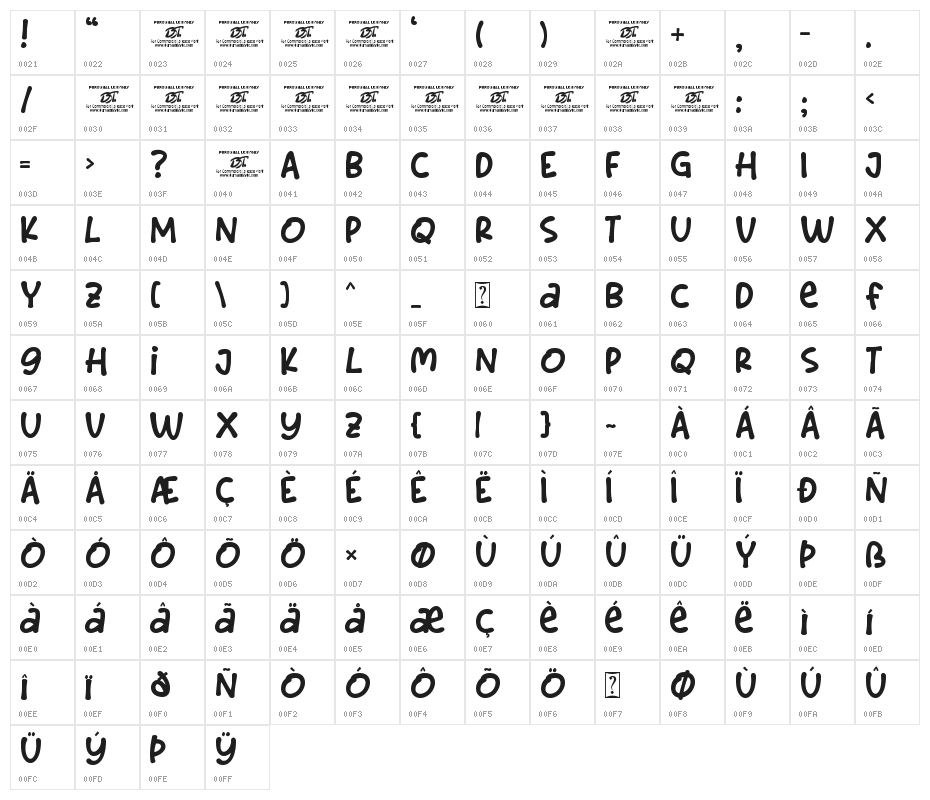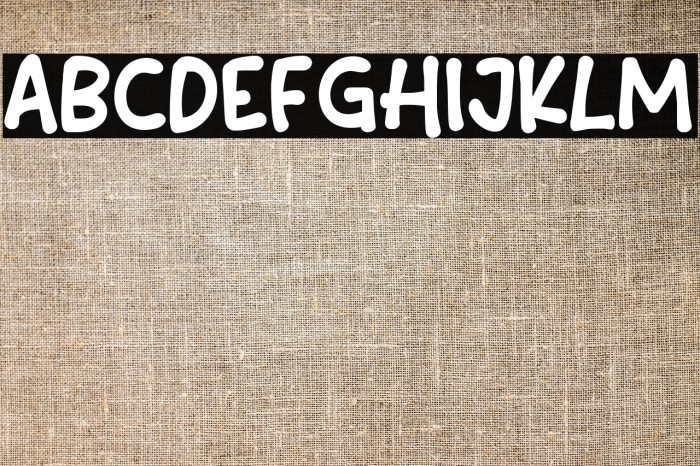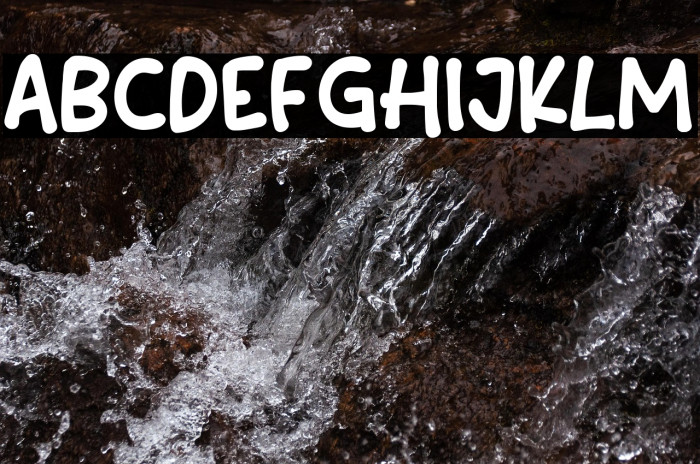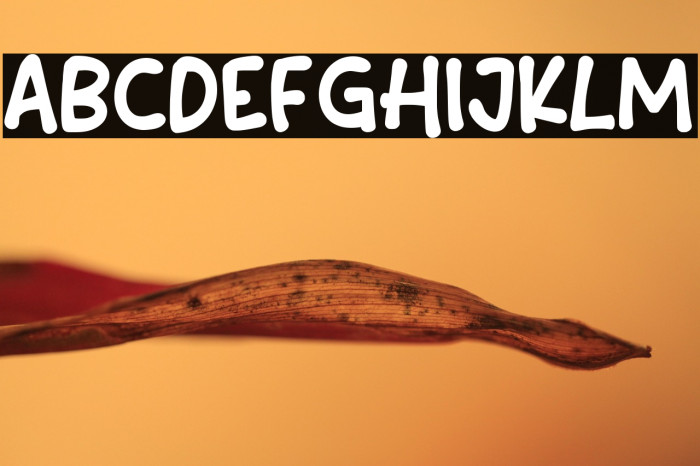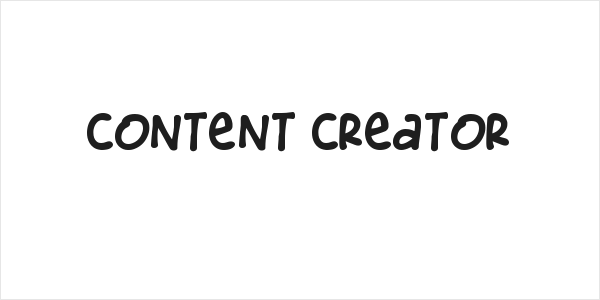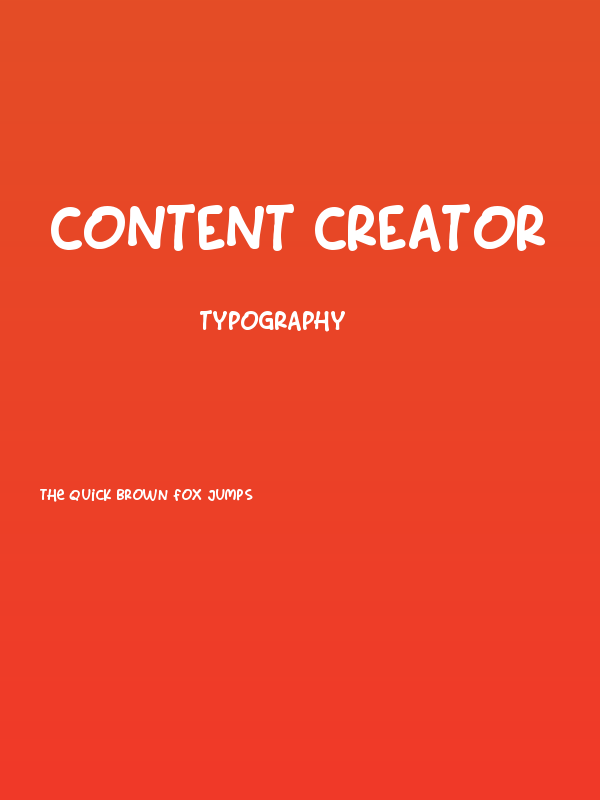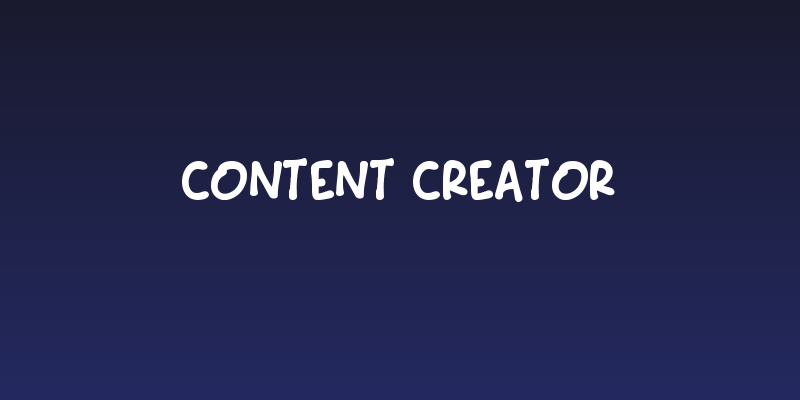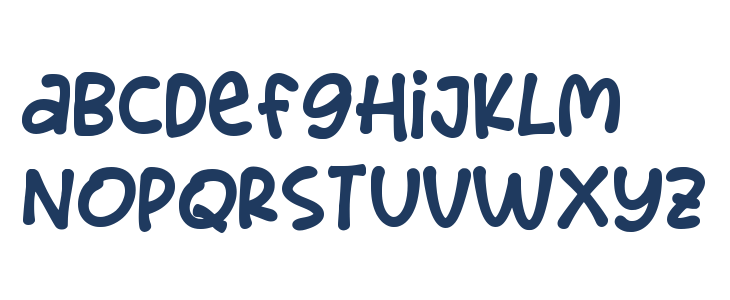
Content Creator Font
Content Creator Description
This font features a playful and bold handwritten style, characterized by its rounded and slightly irregular letterforms. The uppercase and lowercase letters maintain a consistent thickness, giving it a cohesive appearance. The font's casual and friendly vibe makes it suitable for informal and creative projects. The characters are well-spaced, ensuring readability while retaining a whimsical charm. The numerals and special characters are designed to match the overall style, providing a complete set for versatile use.
| Proposed Projects | Ideal for children's books, greeting cards, playful branding, and social media graphics. |